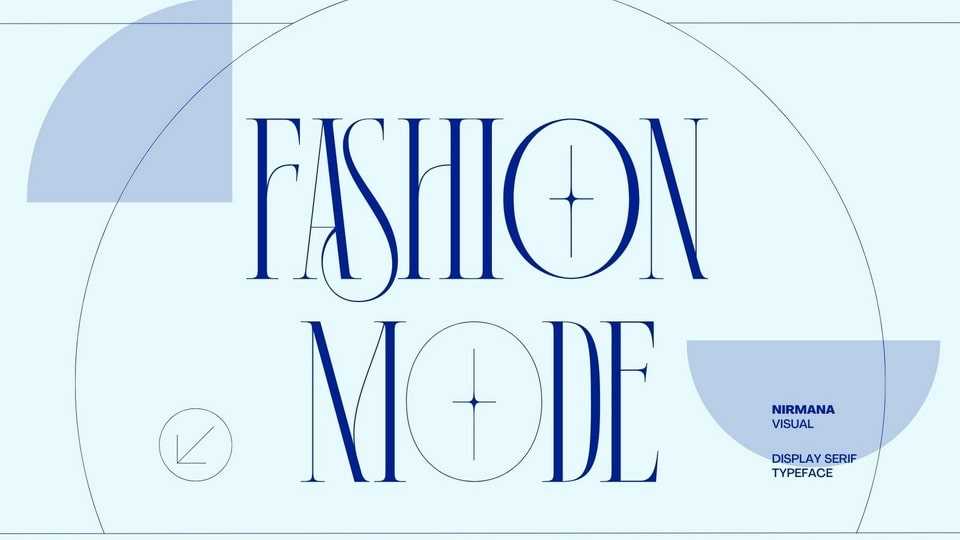
Download Fashion Mode font, a display serif typeface inspired by Renaissance design era. Fashion Mode font offers beautiful typographic harmony for a diversity of design projects